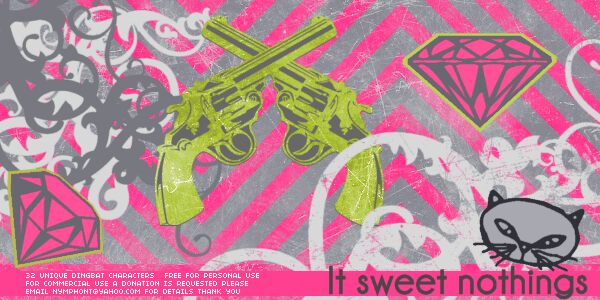
LRT Sweet Nothings
Lauren Thompson
Dings designed by Nymphont from Nymphont's own (Lauren Thompson's) artwork and drawings. Inspiration for a few "vintage" looking dings, such as the fist with brass knuckles and the good luck ring,inspired by a Johnson Smith & Co advertisement in the January 1933 issue of, "Everyday Science and Mechanics." The ad is a true gem, with many more unusual woodcut drawings of the period. I was so taken by them I was certain others might be as well; hence, I recreated them here in this dingbat font. Depicted in the character mapped as the latin lowercase letter 'x' (proper punctiation dictates that a single letter be underlined, not placed in single quotes as I have done. I ask that you forgive me for this error as I am unable to underline text in this description. Also, please forgive this lengthy note, I don't think breaks a grammatical rule but it is possibly in bad form) are Ginger Rogers and Fred Astair as they appear on a poster for the movie they starred in which was entitled, "Swing Time." The film, also a gewm, I am glad to have caught one afternoon on American Movie Classics, a cable network.